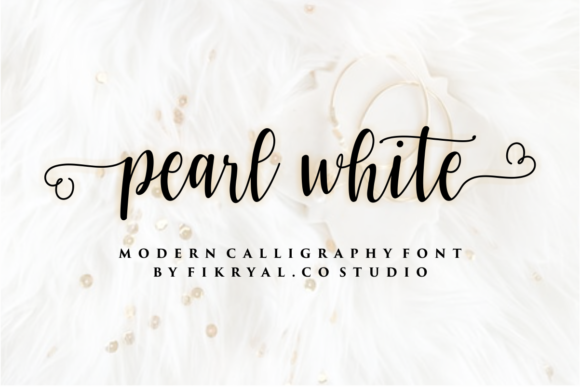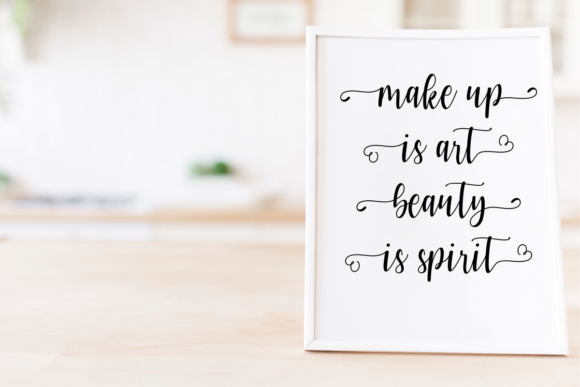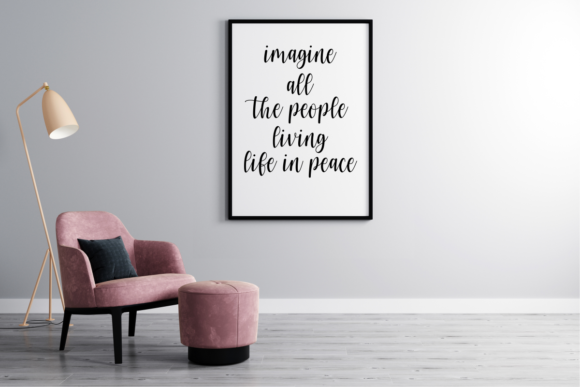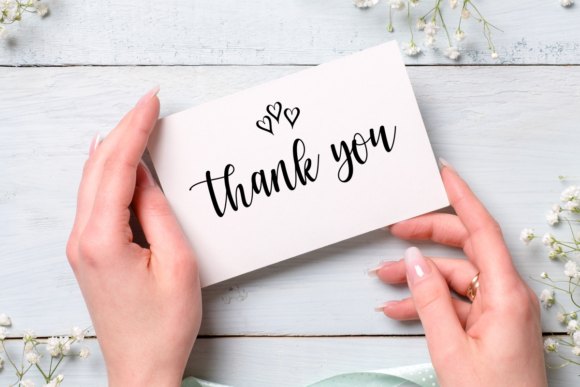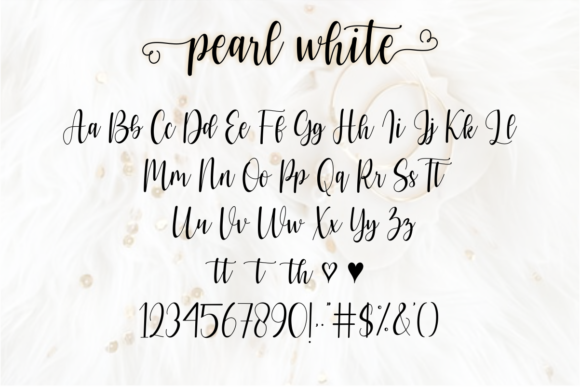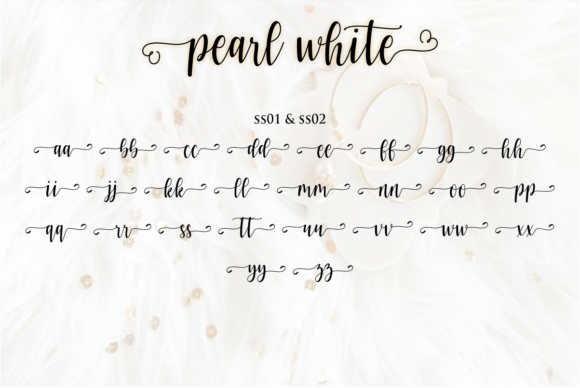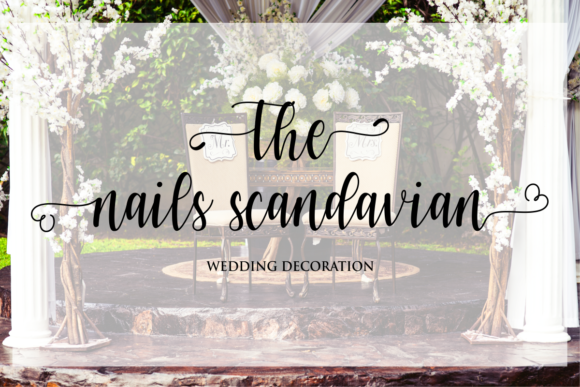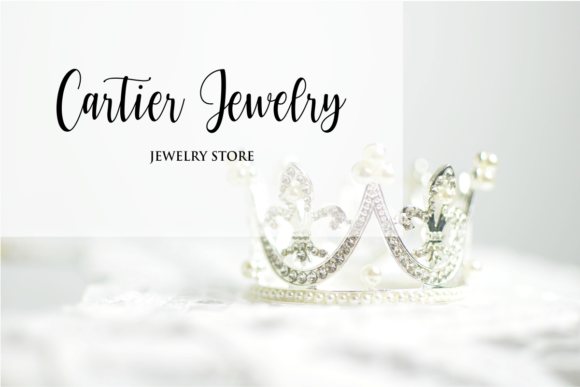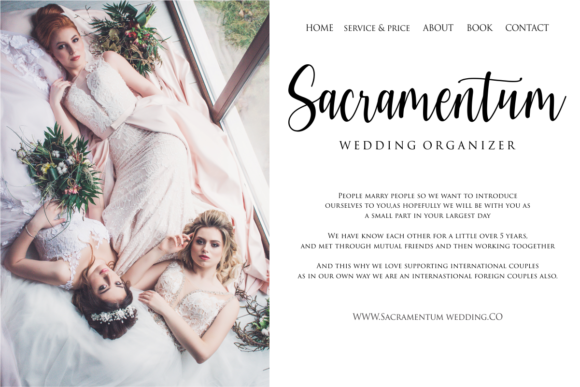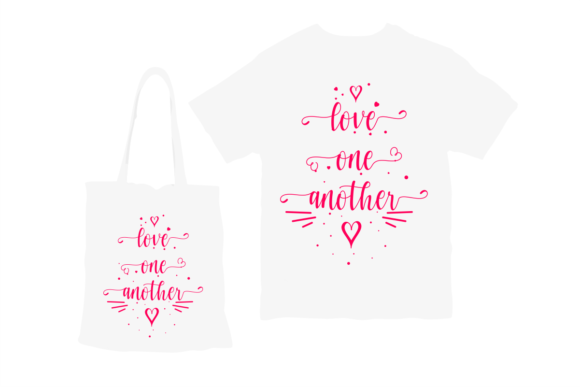
Pearl White Font
About Pearl White Font
Pearl White feels equally charming and elegant. It looks stunning on wedding invitations, thank you cards, quotes, greeting cards, logos, business cards and every other design which needs a handwritten touch.
This font is PUA encoded which means you can access all of the glyphs and swashes with ease! It features a varying baseline, smooth lines, gorgeous glyphs, and stunning alternates.